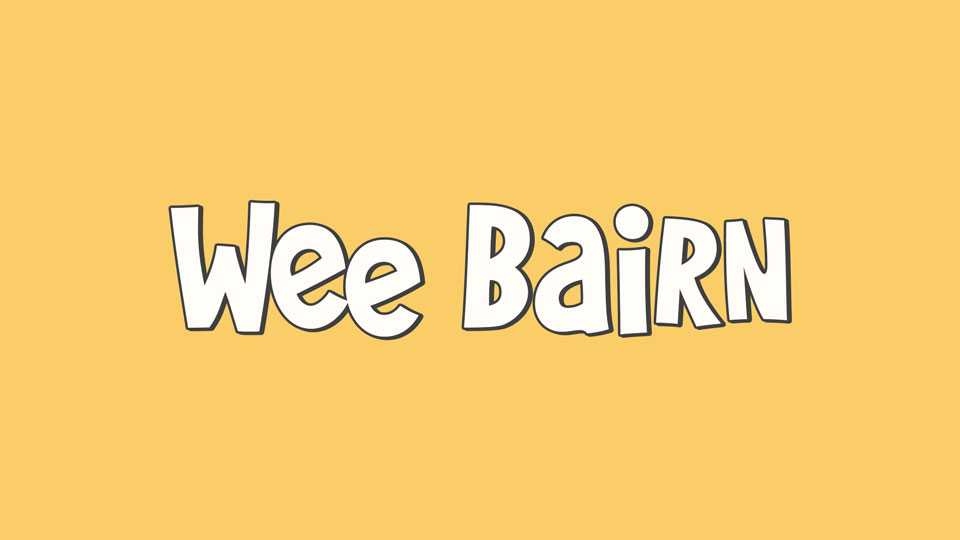
Download Wee Bairn font, a playful and quirky cartoon typeface with a lively, bouncy feel in every letter that gives a hand-drawn look and a sense of motion.